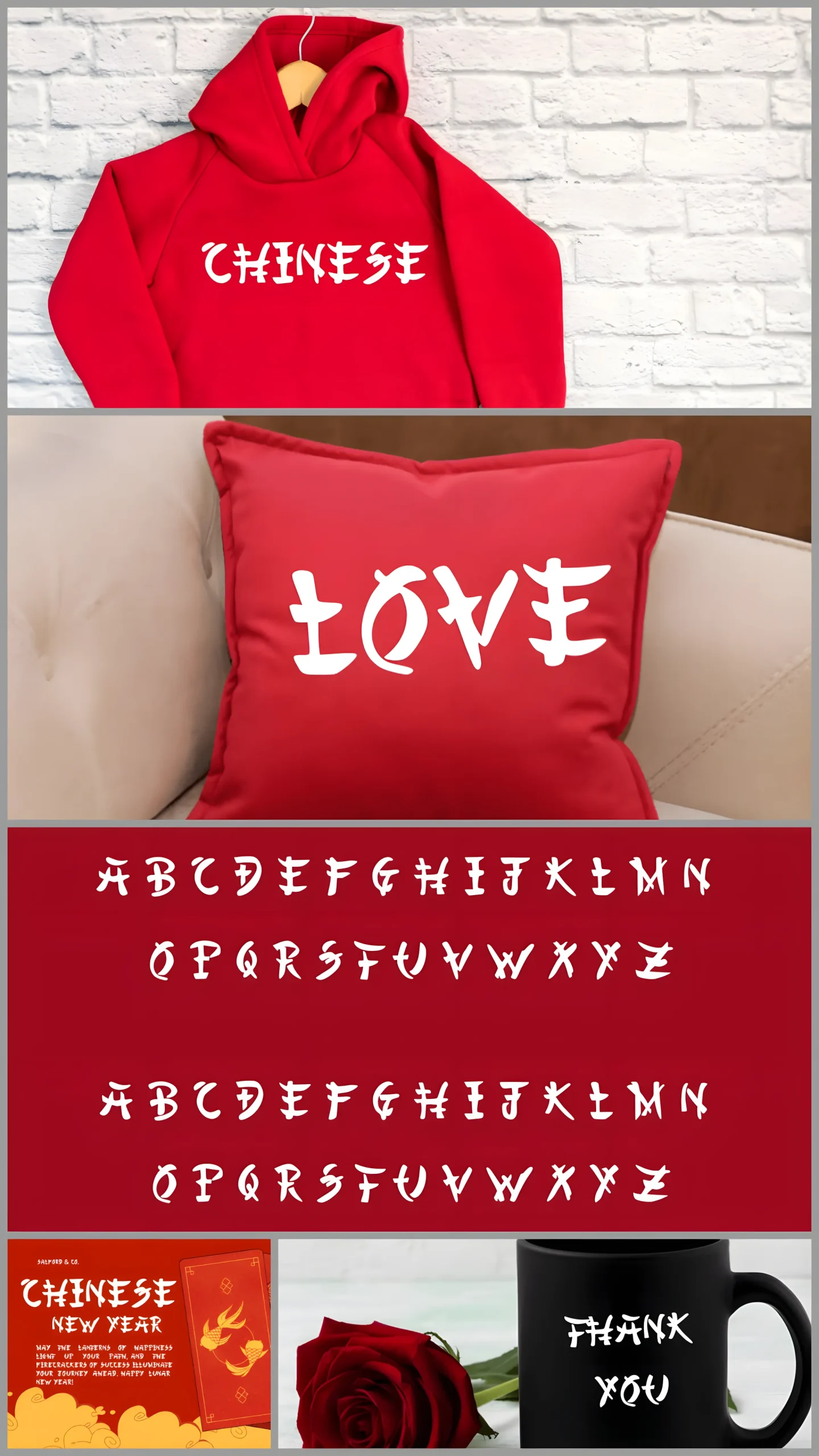
Chinese New Year Display is a cool font that gets its vibe from Chinese traditions and the fun of the Lunar New Year. Its lively lines and handmade feel show the energy and good feelings of this special time. The letters are strong and sure, so the font grabs your attention but is still easy to read.
This font is great for blog posts about Chinese New Year, Lunar New Year stuff, or holiday ideas. It looks good in titles, big images, banners, or quotes that need a bit of that holiday cheer. When you use it with simple body text fonts, it makes things pop without being too much.
Besides just writing, you can use this font for pictures in your blog posts, like decorations or greeting cards. It fits right in whether it’s on a screen or on paper. That makes it a good pick for designers, bloggers, teachers, and anyone making stuff about the holiday.
Basically, Chinese New Year Display is like a way to tell a story. It makes your blog feel real and full of life, which lets people feel the joy of the Lunar New Year.